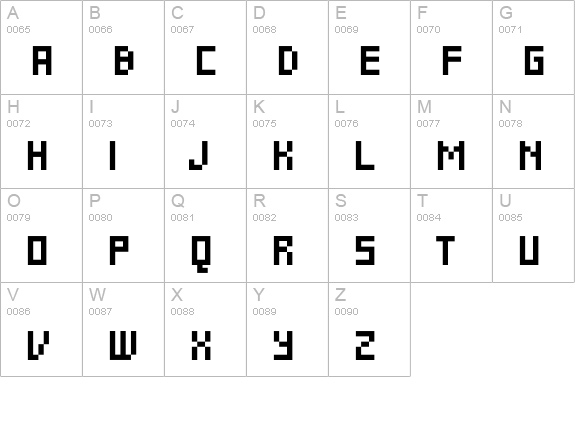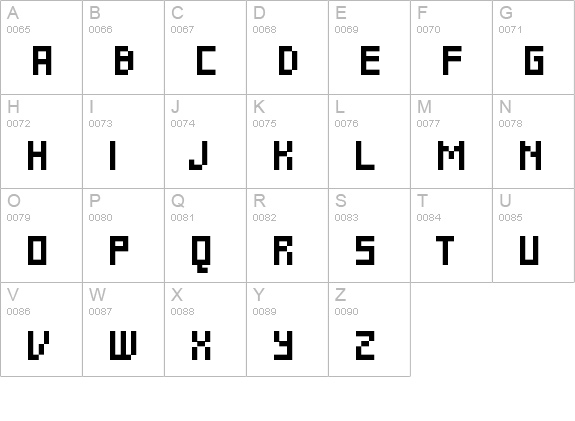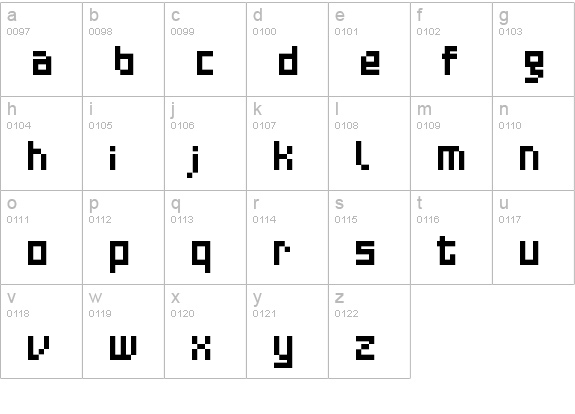
PFOnlineThreePro-Double Font Details
PFOnlineThreePro-Double font is a modern and stylish typeface that is perfect for a wide range of design projects. With its clean lines and bold appearance, this font exudes professionalism and sophistication. Whether you're designing a logo, poster, website, or any other visual content, PFOnlineThreePro-Double will make your text stand out and leave a lasting impression. What sets PFOnlineThreePro-Double font apart is that it is available for free download at FontsMarket.com. This means that you can easily access this high-quality font without having to break the bank. So why settle for generic and overused fonts when you can elevate your design with PFOnlineThreePro-Double for free? Download it today and take your projects to the next level.